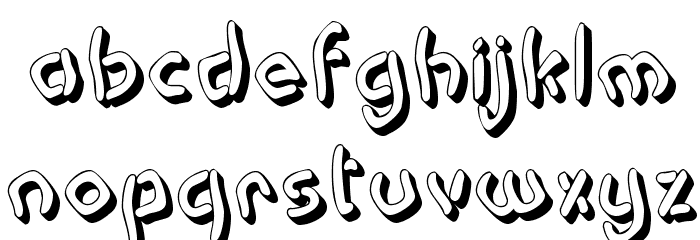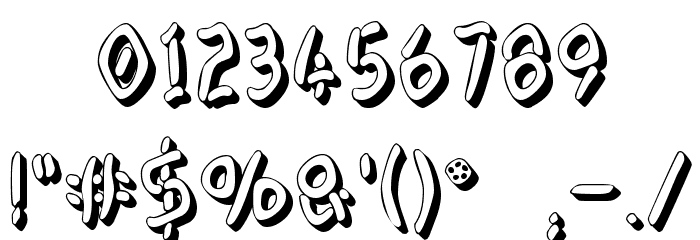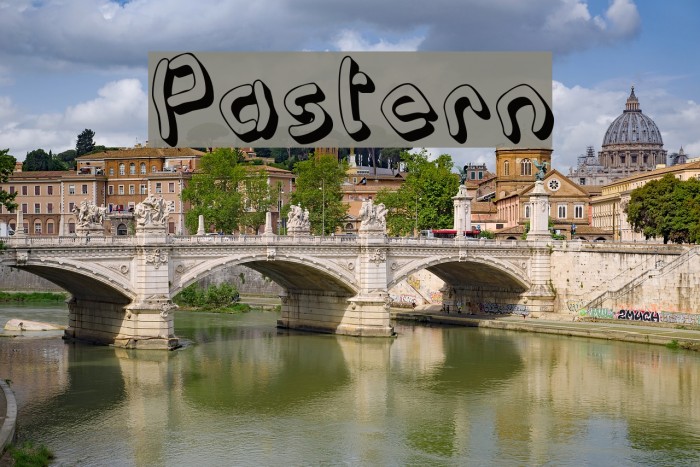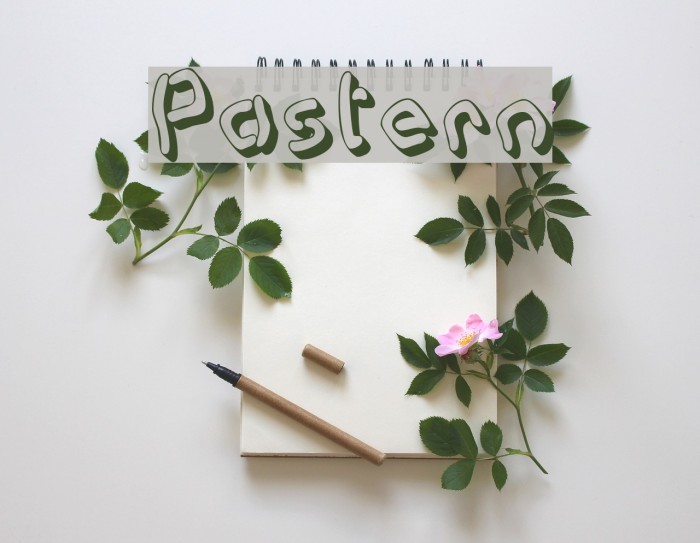
Pastern Font
This playful and bold font features a three-dimensional, shadowed effect that gives each character a sense of depth and movement. The letters are rounded and slightly irregular, contributing to a whimsical and informal appearance. The font's unique style is characterized by its thick outlines and the illusion of a drop shadow, which adds a dynamic and eye-catching quality. The uppercase and lowercase letters maintain a consistent style, while the numerals and special characters are designed to match the overall aesthetic. This font is perfect for projects that require a fun and engaging visual impact.
A playful, bold font with a 3D shadow effect and rounded, irregular characters.
- Proposed Projects: Ideal for children's book covers, playful branding, posters, and creative invitations.